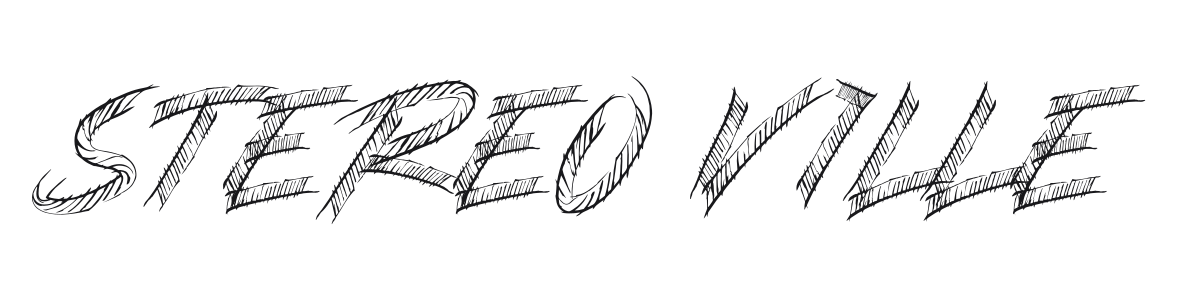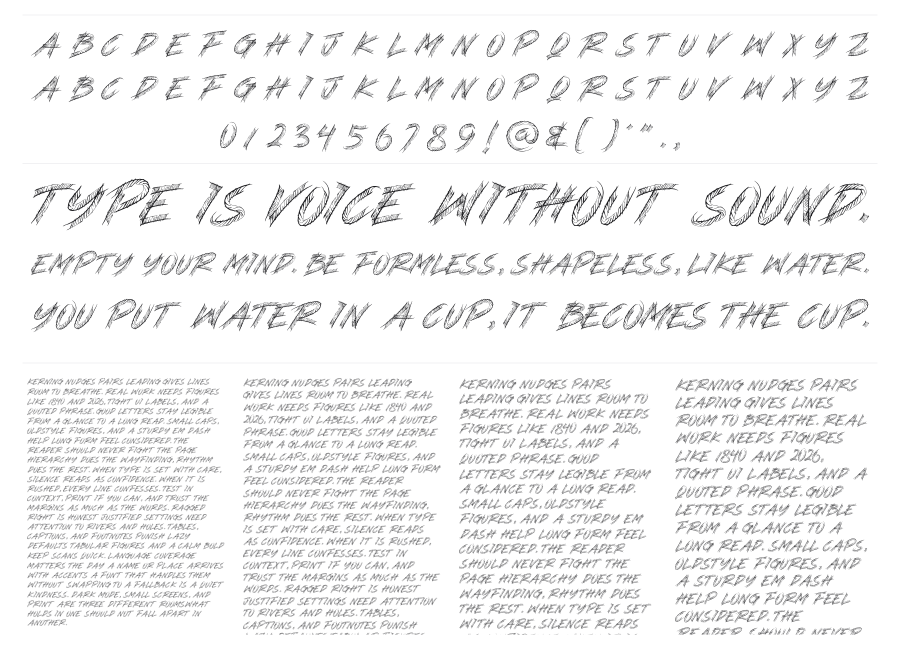
Stereo Ville
Stereo Ville is a wildly textured italic display face where every character looks like it was scrawled in a hurry with a broken pen. The crosshatched, scratchy fill gives it a raw, underground energy that feels at home on concert posters, album covers, and streetwear graphics. It commands attention at large sizes, where all that visual noise becomes part of the personality.